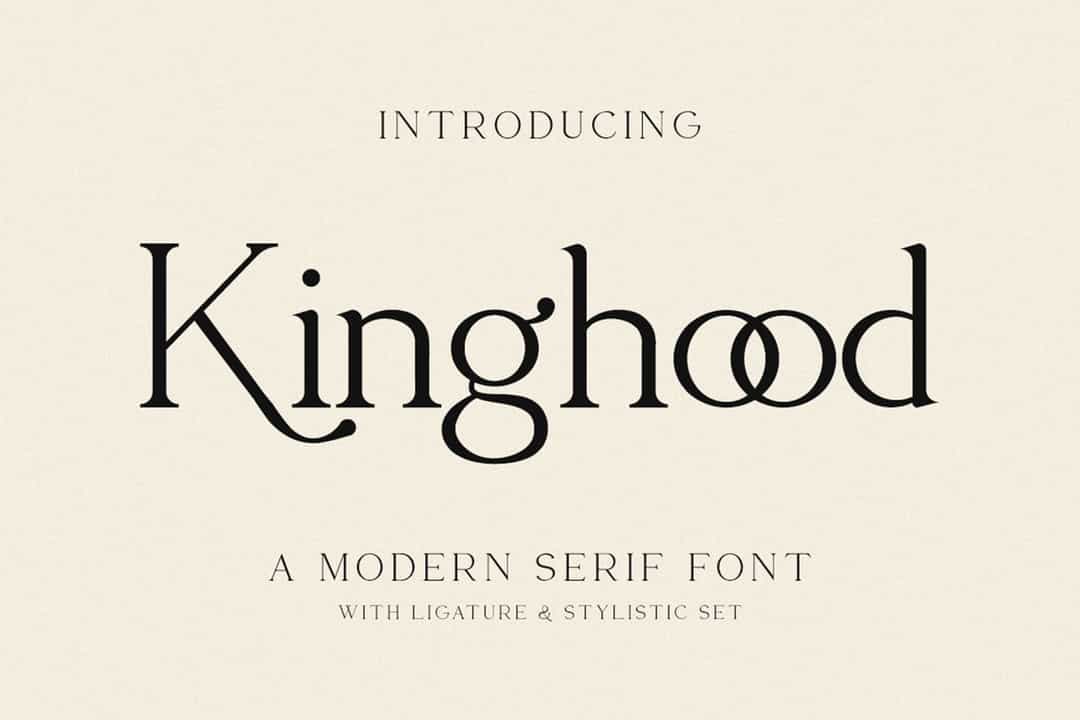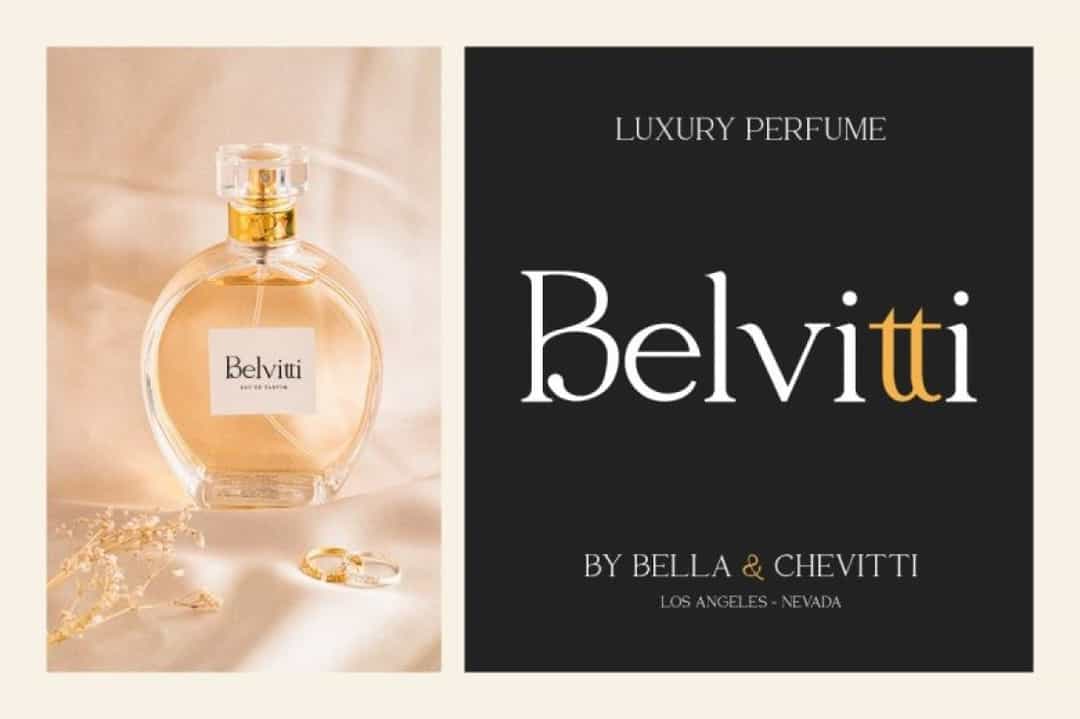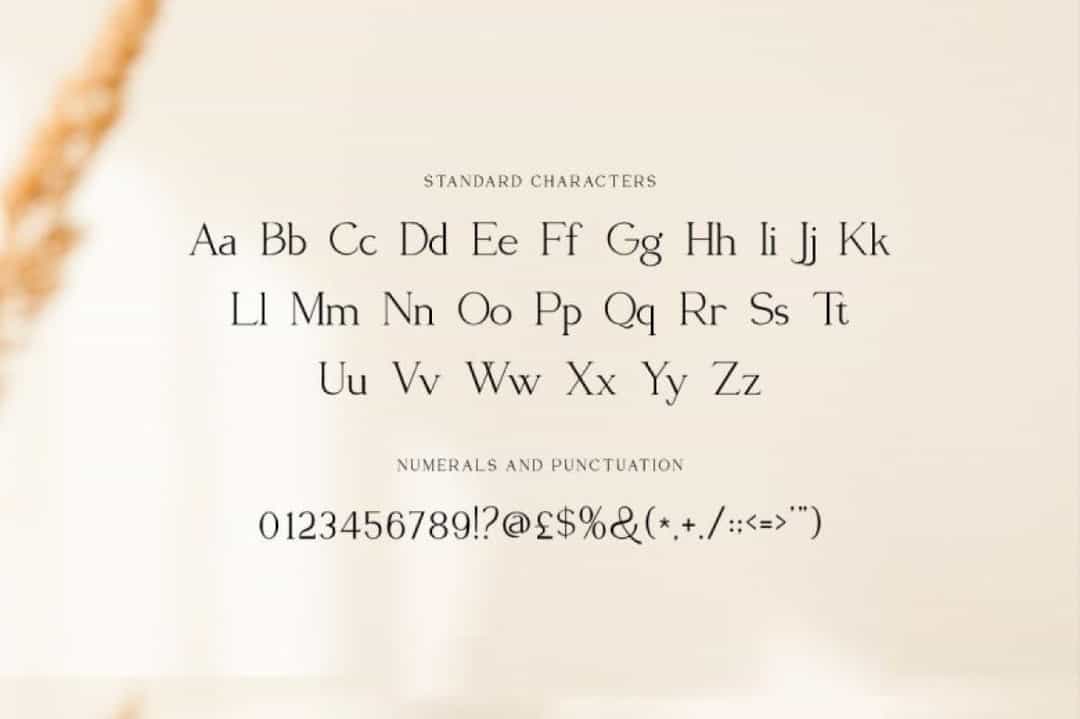
Kinghood is an exquisite serif font. As its PUA encoded, you have access to all its amazing glyphs and ligatures easily! Add this beauty to any design project for breathtaking results.